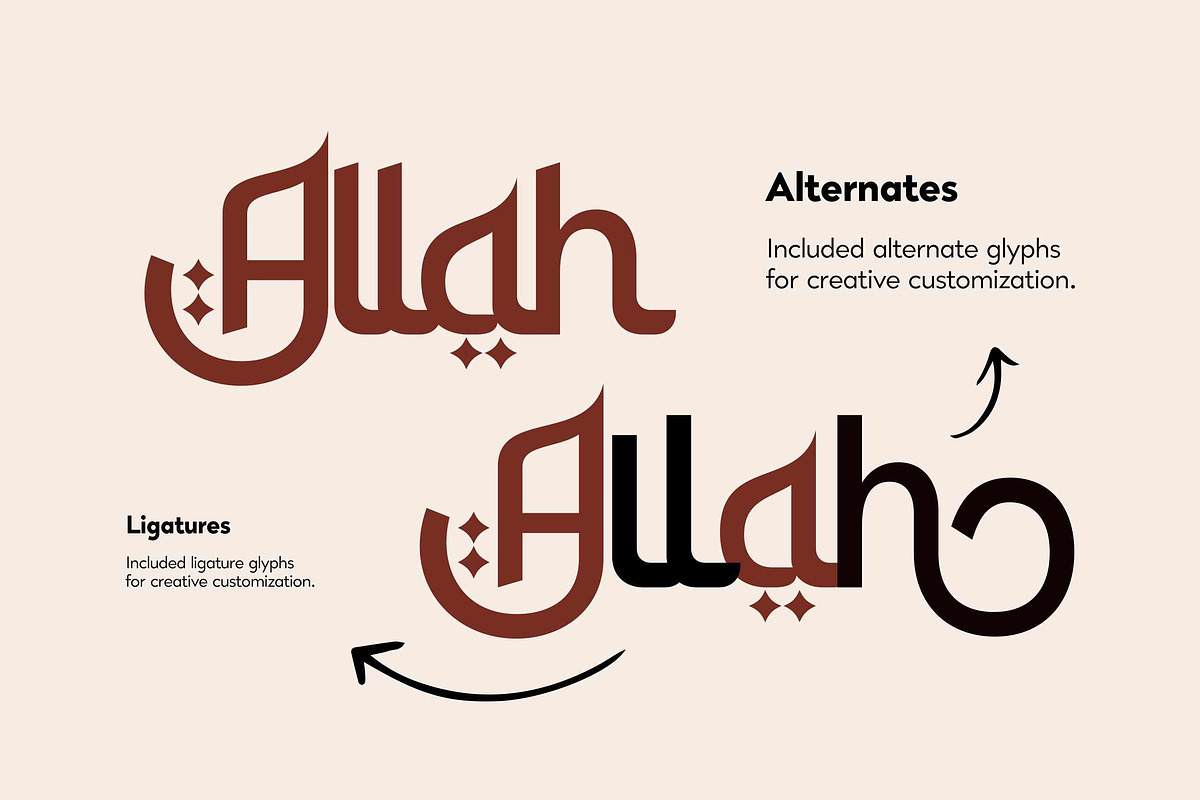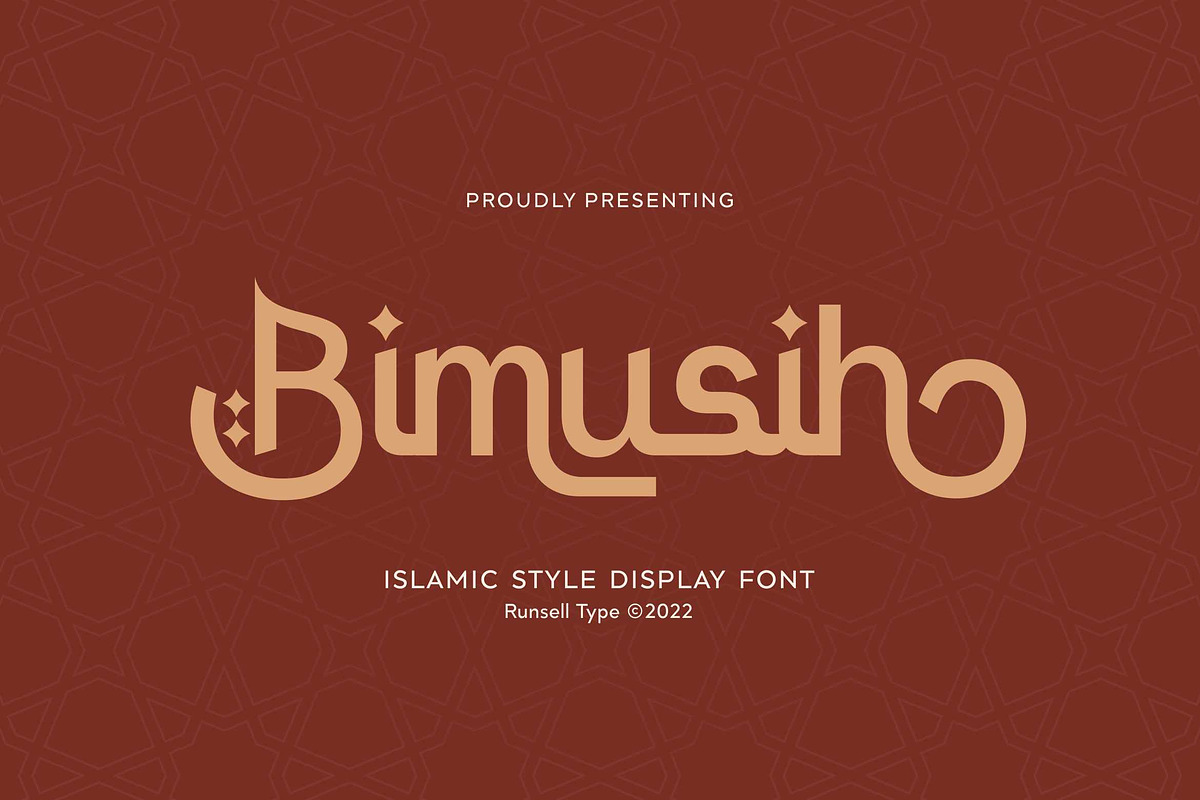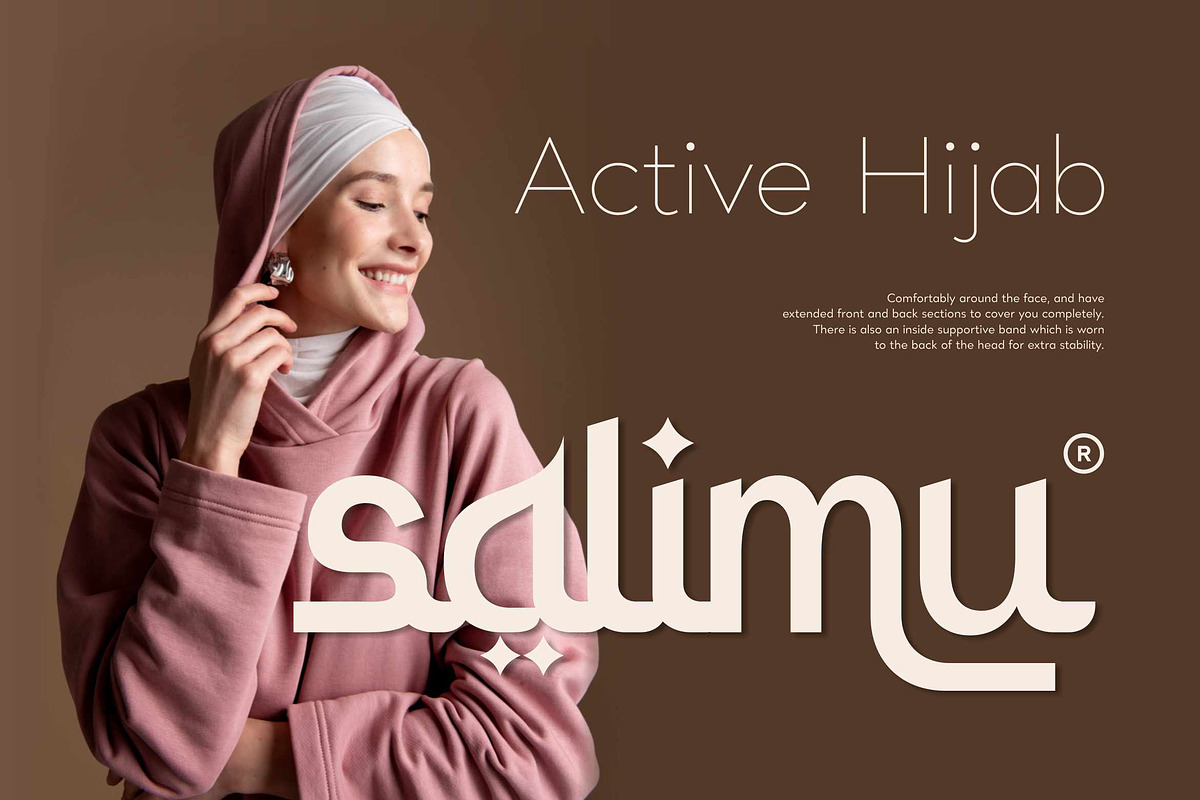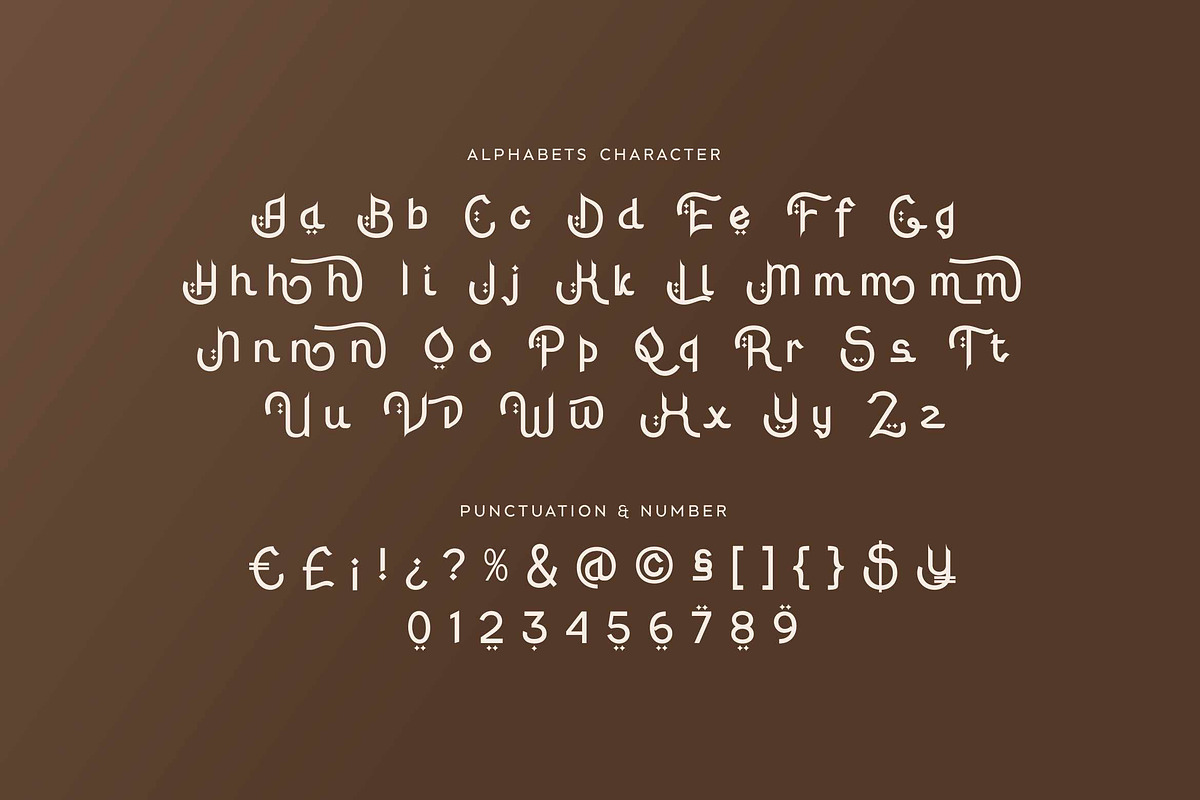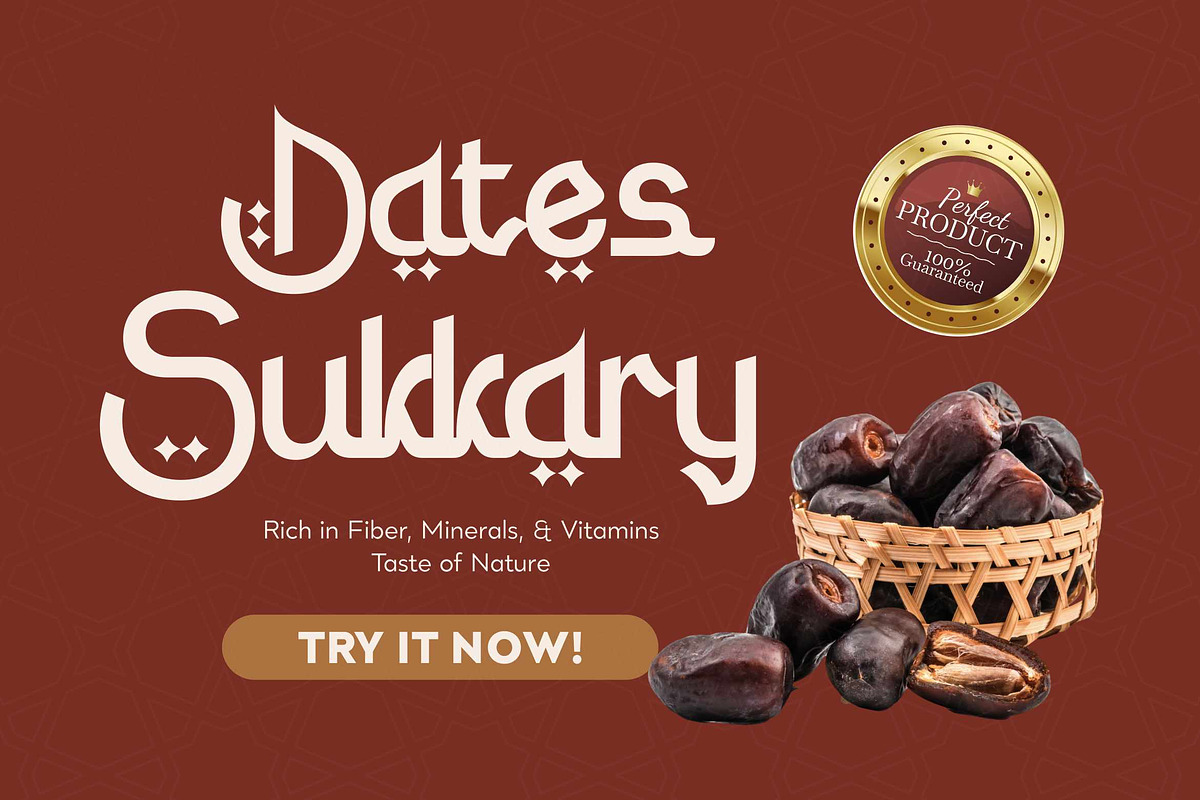
Bimusih - Modern Arabic Font Display
Bimusih - Modern Arabic Font Display is perfect for many of your projects like logos & branding, photography, invitations, watermarks, advertisements, product designs, stationery, wedding designs, labels, product packaging, special events and much more.